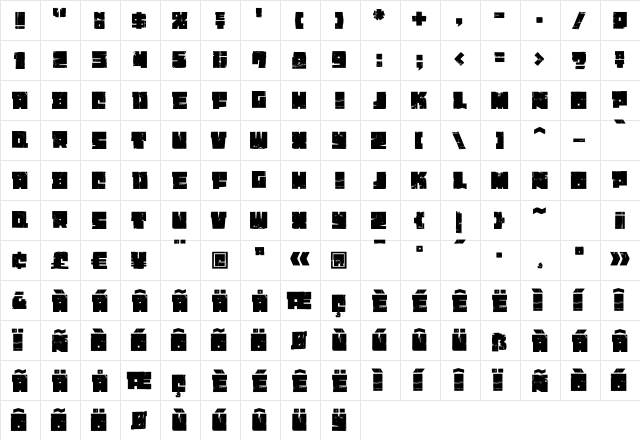
Mammoth Regular
Design Context for Mammoth Typeface
Mammoth is a composed and adaptable typeface that performs quietly and consistently across a wide range of design contexts.
Pro Tip: Pair Mammoth with a font of contrasting weight or personality to build a more expressive typographic hierarchy.